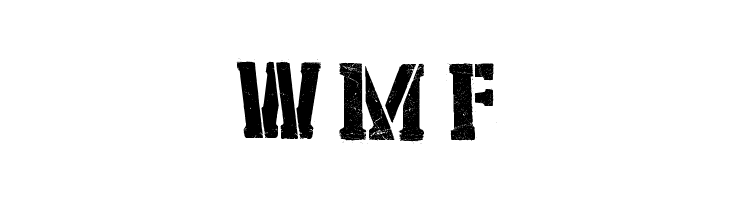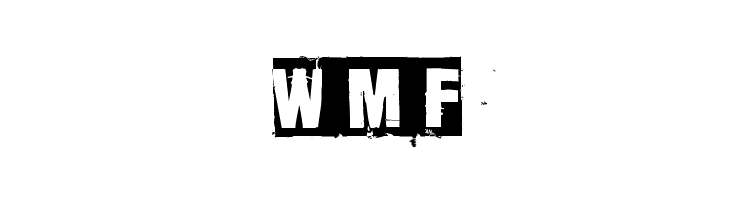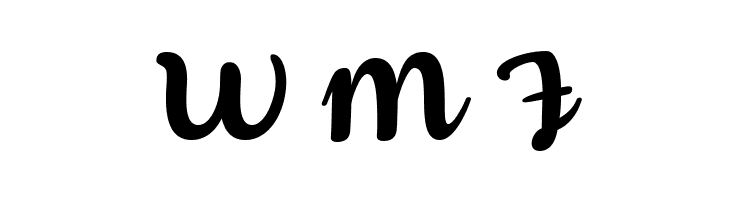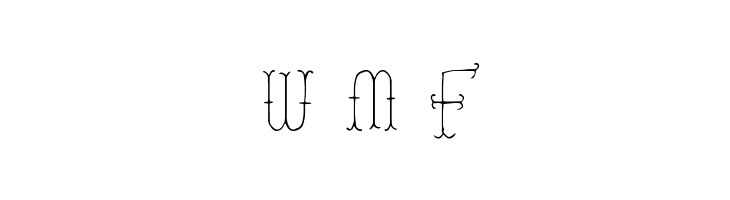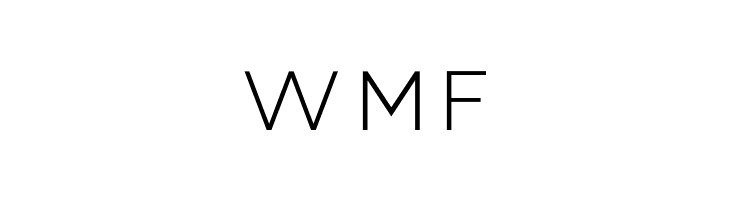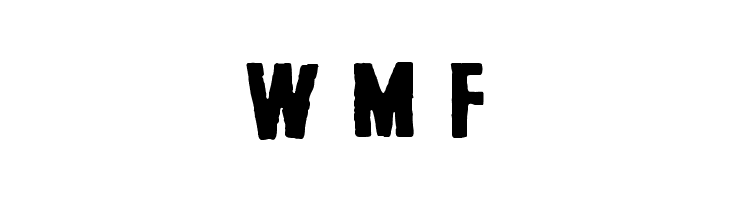
• Strongarm
A bold, geometric font with strong, blocky characters.
• Strongarm Bold Italic
A bold, italicized font with angular, dynamic characters.
• Strongarm Italic
A bold, italic font with a dynamic, angular style.
• KarmaCycle
• Stencil Cargo Army
A bold, distressed stencil font with a military-inspired design.
• Armegoe
• Dharma Punk
A bold, distressed font with a gritty, vintage punk aesthetic.
• Dharma Punk 2
A bold, distressed font with a gritty, urban aesthetic.
• Dharma Bum
A bold, distressed font with a vintage, textured appearance.
• DespainGang_Karmelle_37
( Fonts by Karmelle Despain )
A playful, casual handwritten font with irregular strokes and a friendly feel.
• OLIVE CHARMING
A playful, handwritten font with a modern and casual style.
• Safe from harm
A bold, distressed font with a vintage, industrial feel.
• Marmalade Toast
A playful, handwritten font with a casual and dynamic style.
• Armonioso
A bold, cursive font with flowing, interconnected strokes and high contrast.
• CharmingGem
A playful, handwritten font with a whimsical and friendly style.
• Charming Normal
An elegant, whimsical font with intricate swirls and flourishes.
• FarmBarns
A whimsical and decorative font with intricate, curling serifs and elegant curves.
• Armorhide Bold Italic
A bold, italicized font with a strong, angular, and futuristic design.
• Armorhide Bold
A bold, geometric font with a strong and angular design.
• Angel Arms Italic
A bold, decorative font with unique cut-out patterns and high contrast.
• Strongarm Caps
A bold, decorative font with uppercase letters and numbers encased in poker chip-like circles.
• Charming shabby demo